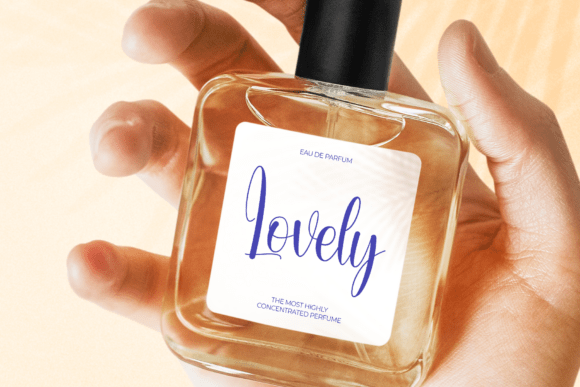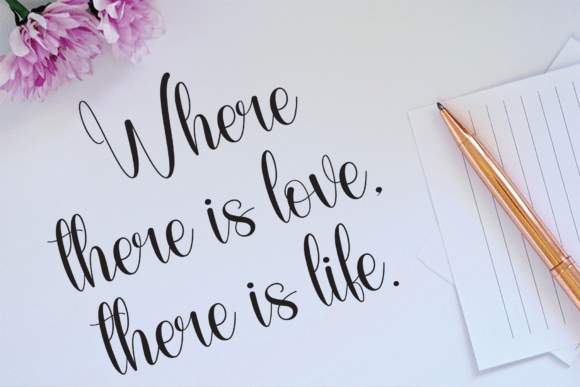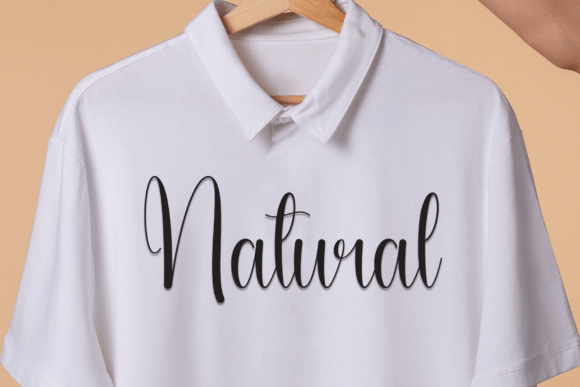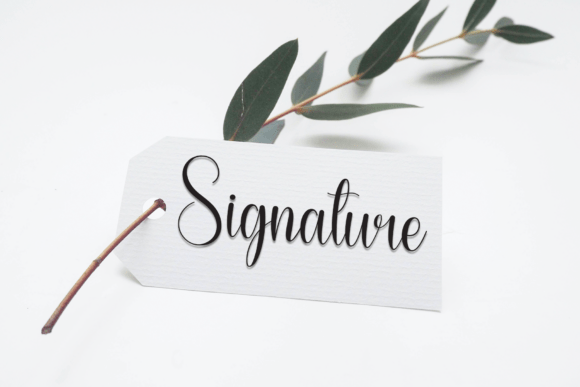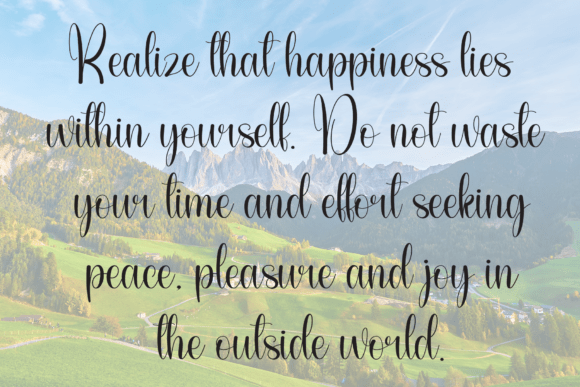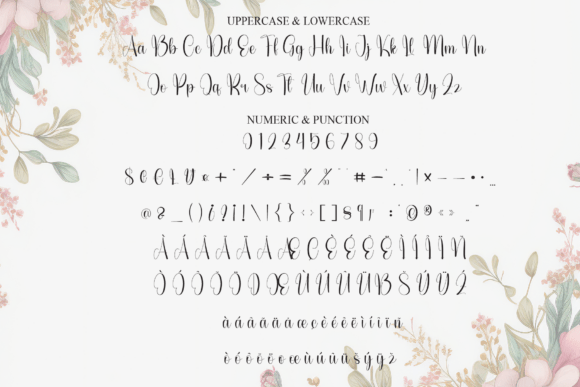
Introduction to Simple Handwritten Font
Introducing a heartwarming, personally handwritten display font, characterized by its charming sweetness.
Boasting both a delightful and playful personality, this font shines perfectly on matrimonial invitations, sentimental cards, or any creative design that could use a spritz of fun Allow this delightful font to add a dash of whimsical charm to your creative projects.